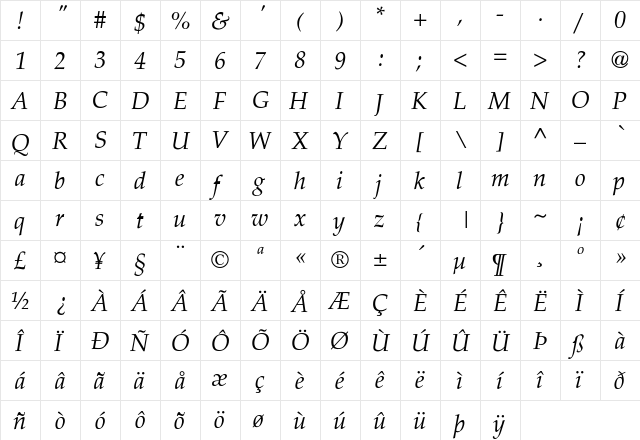
Palazzo-Italic Regular
Design Context for Palazzo-Italic Typeface
Palazzo-Italic is a composed and adaptable typeface that performs quietly and consistently across a wide range of design contexts. The slanted form adds forward momentum and visual energy.